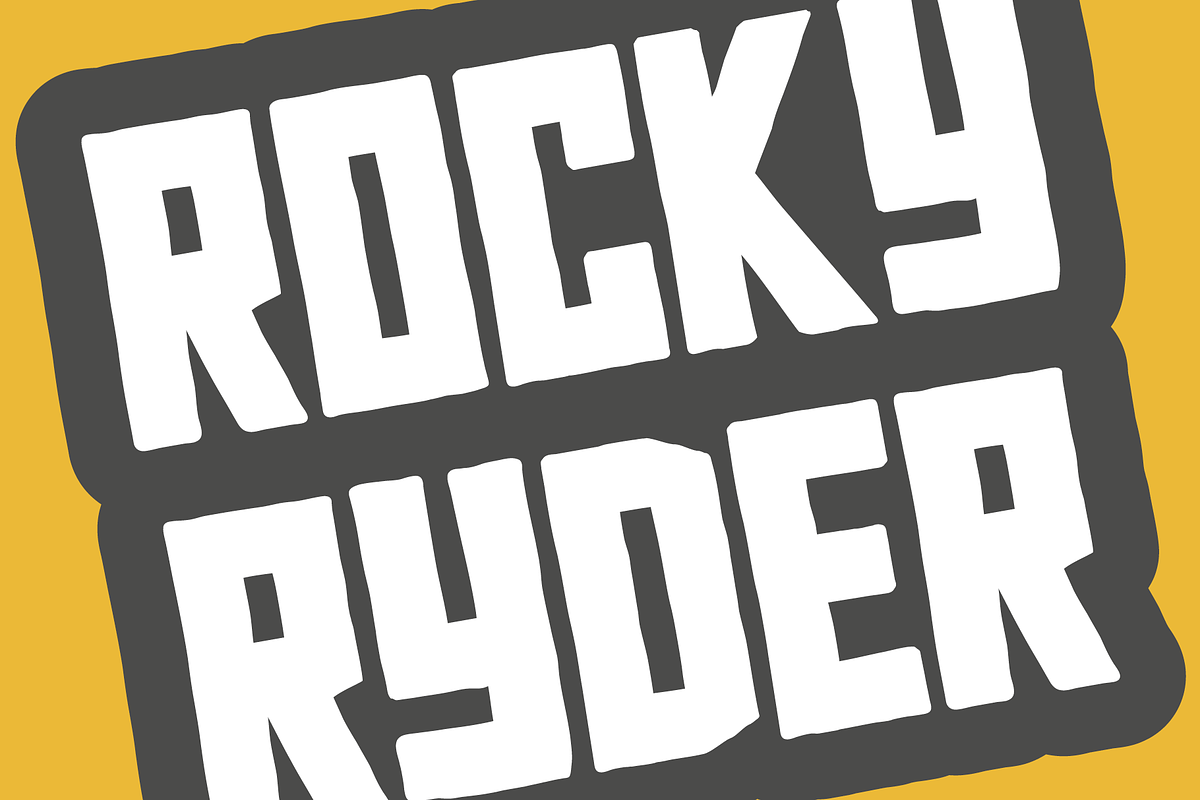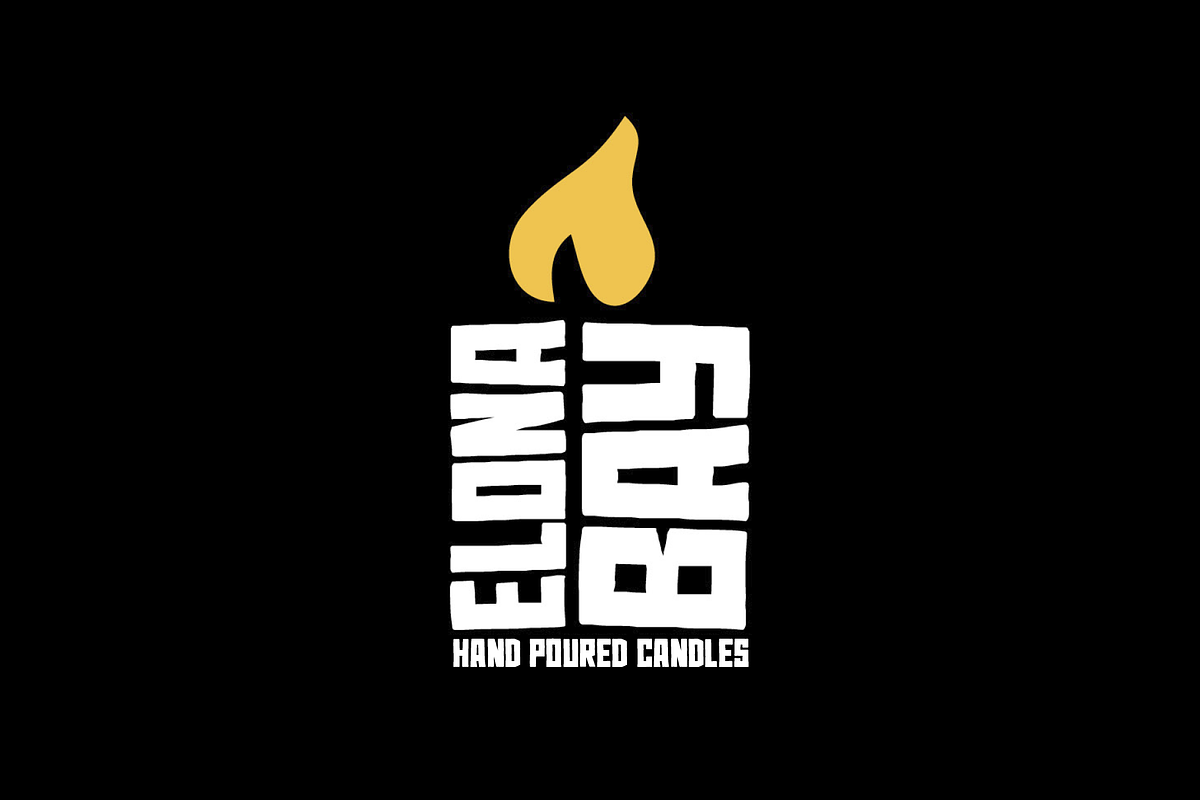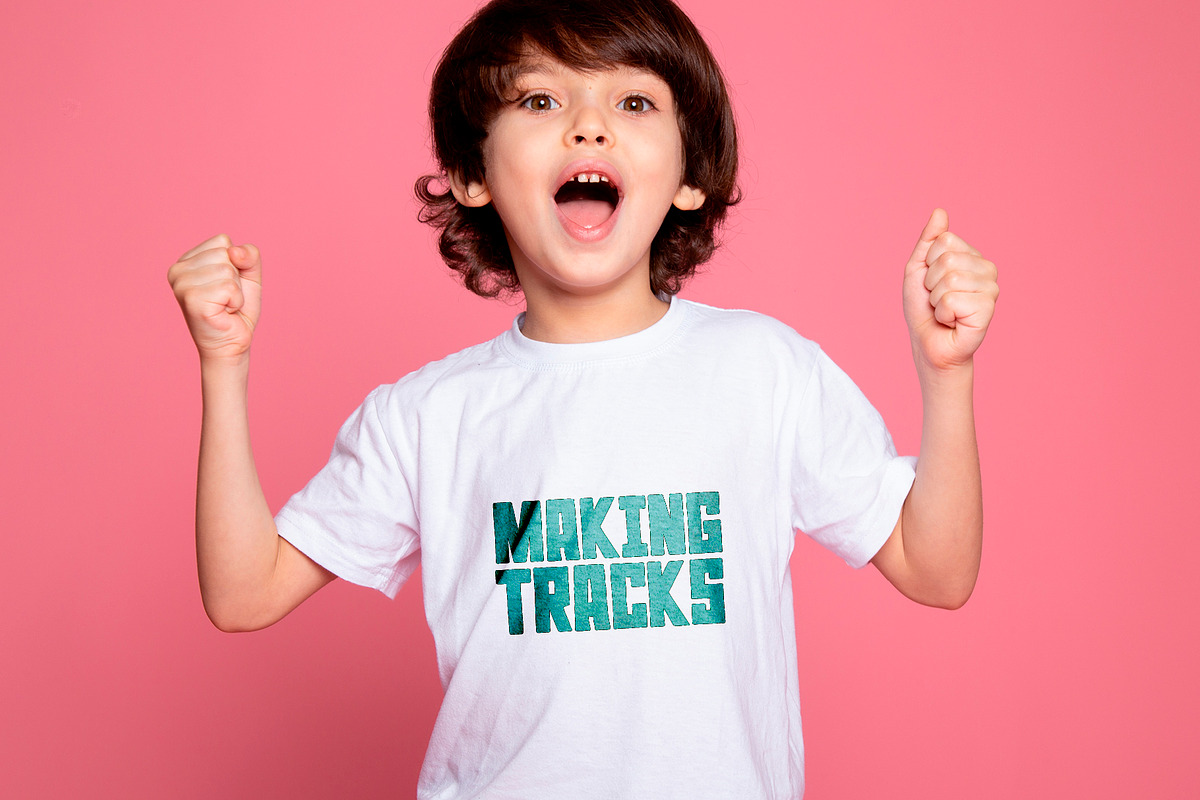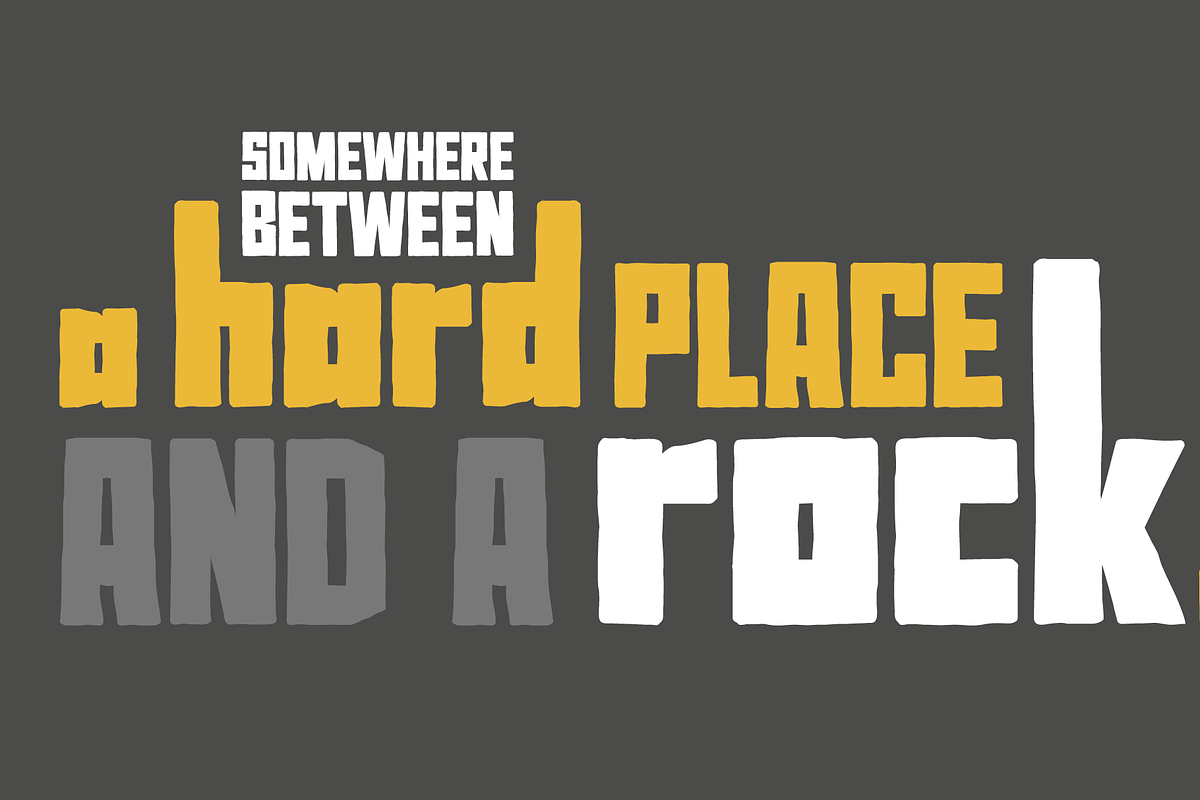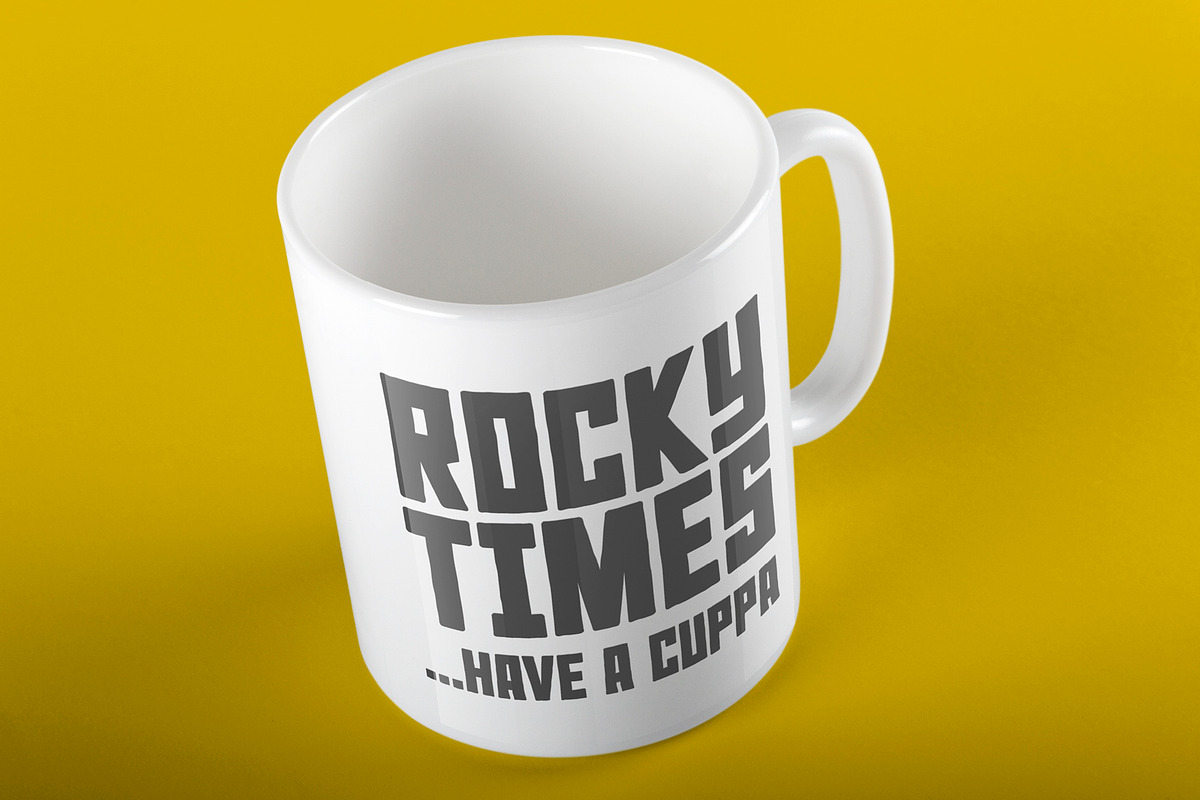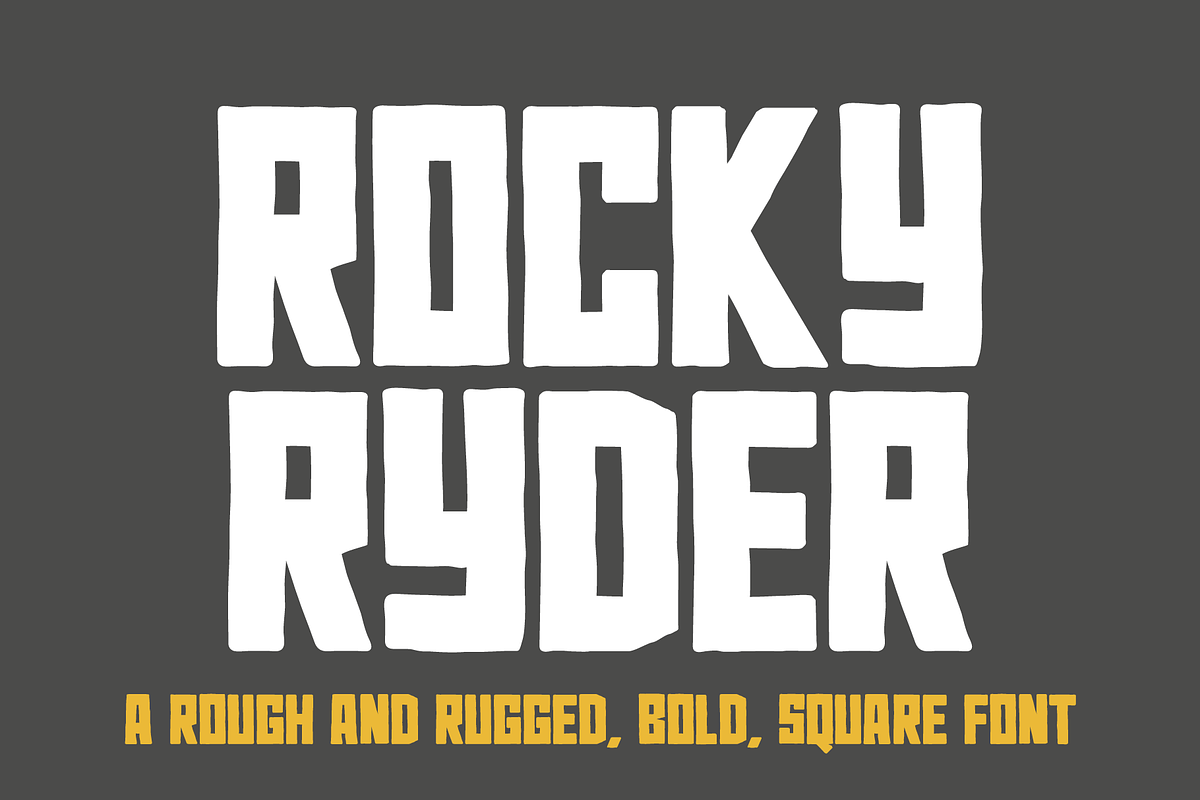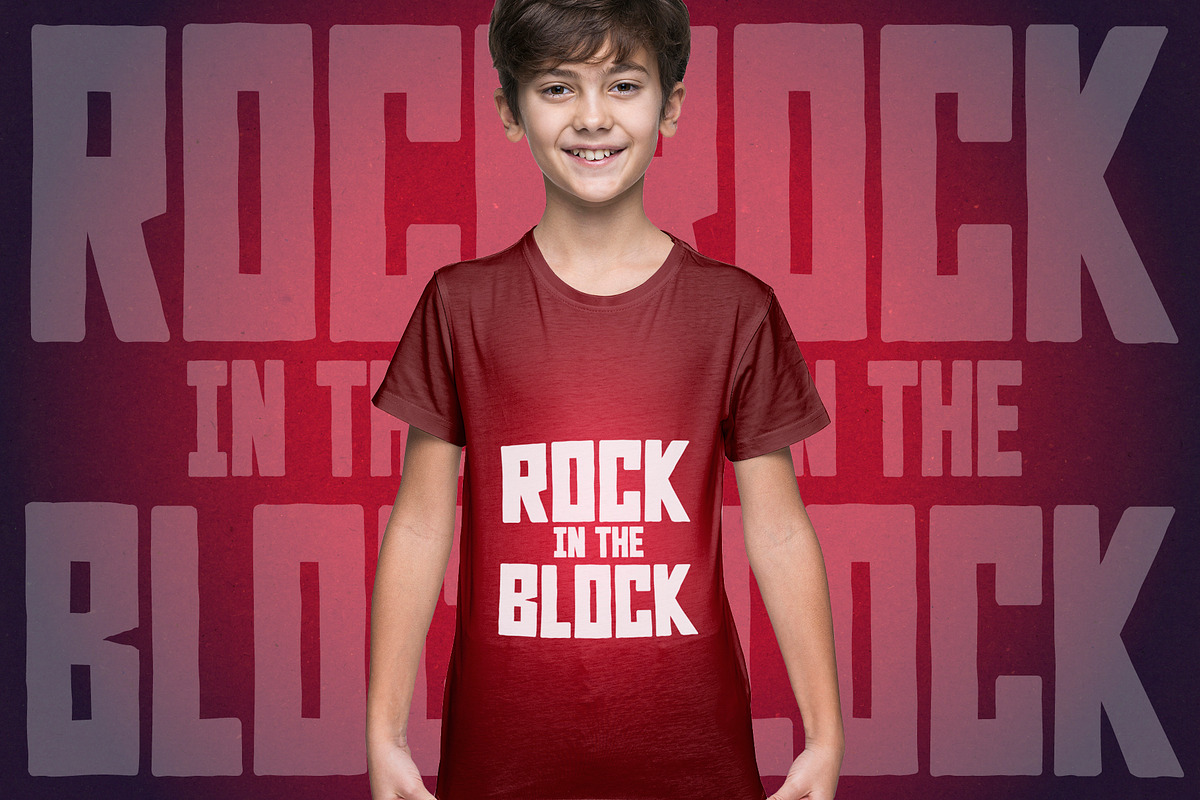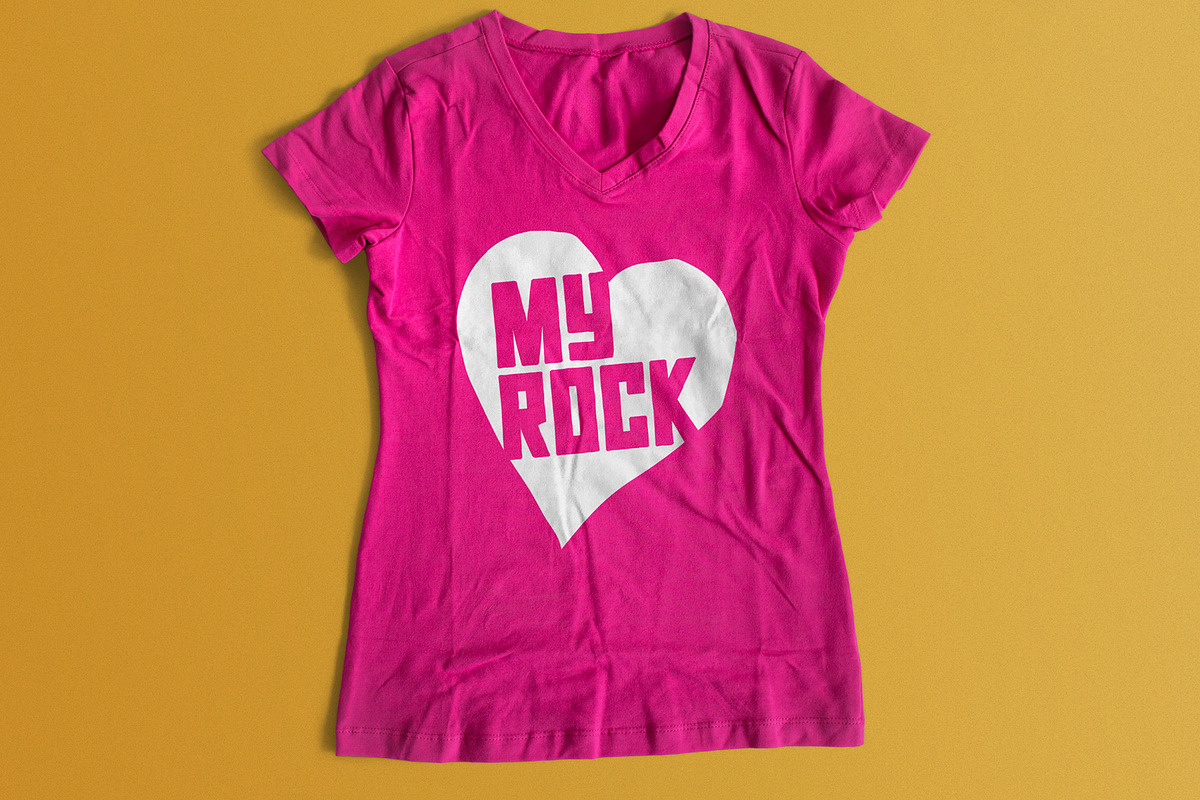
Rocky Ryder a rough rugged font
Rocky Ryder Display Font.
Rocky Ryder is a strong and rugged font. A rough and ready, workhorse font. This is a tough font for industrial usage. Dynamic and sporty, it can be well used for sports themed designs. Also well suited to industry, machinery and diggers. A fantastic outdoors font, a bit of a boys font? Great for display text and bolds headlines when used in all CAPITALS!
Can be used on T-shirts, mugs, posters, coasters, prints, pillows...
Full uppercase, lowercase and special characters. Includes the full European character set including western, central and south eastern glyphs.